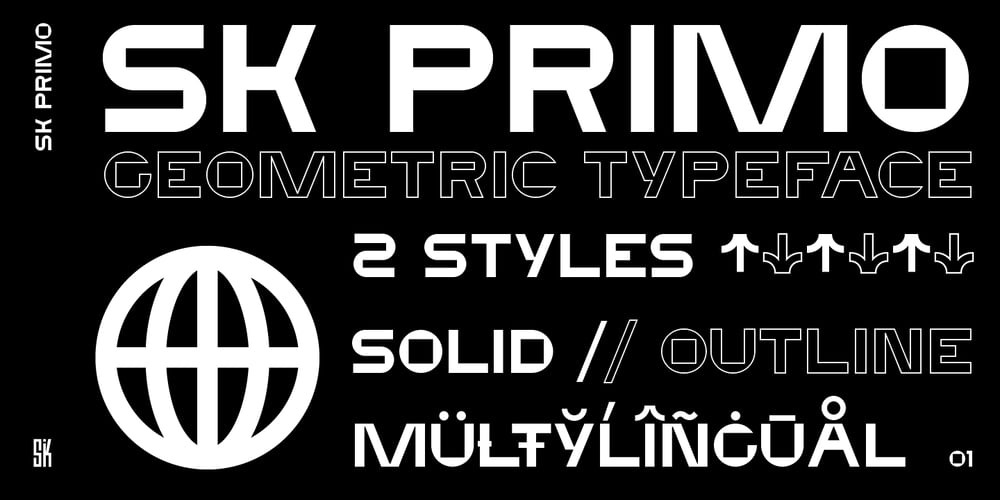
SK Primo
SK Primo font
SK Primo Font Family was designed by Tikhon Reztcov and published by Shriftovik. SK Primo contains 2 styles and family package options. SK Primo is a monumental geometric grotesque created to stand out. An unusual combination of smooth rounded contours and sharp square shapes creates a visual contrast that is noticeable. Carefully adjusted shape and attention to detail make this font a great help in the work of the designer. SK Primo is ideal for headlines, posters, banners, and text highlighting. Two styles, solid and outline, were developed to address all communication needs.